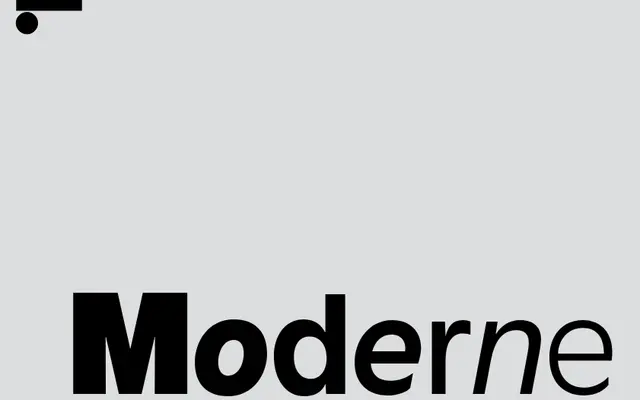
LL Moderne
LL Moderne specimen from Lineto
A humanist sans-serif by Robert Huber that draws on the French grotesque tradition of Excoffon and Frutiger, with open counters and vertically-cut stroke endings suited to both text and display.
Designed between 2013 and 2017, LL Moderne takes its name as a direct play on Excoffon's Antique Olive while maintaining a clearly contemporary character. Open counters, a high x-height and compact proportions improve legibility at small sizes and on screen, while two additional fat cuts extend its range toward billboards and signage. The tonal graduation across the weight range gives fine control over text grey for setting body copy.
A humanist sans-serif with vertically-cut stroke endings and high x-height, inspired by Excoffon's Antique Olive and the broader French humanist grotesque tradition.